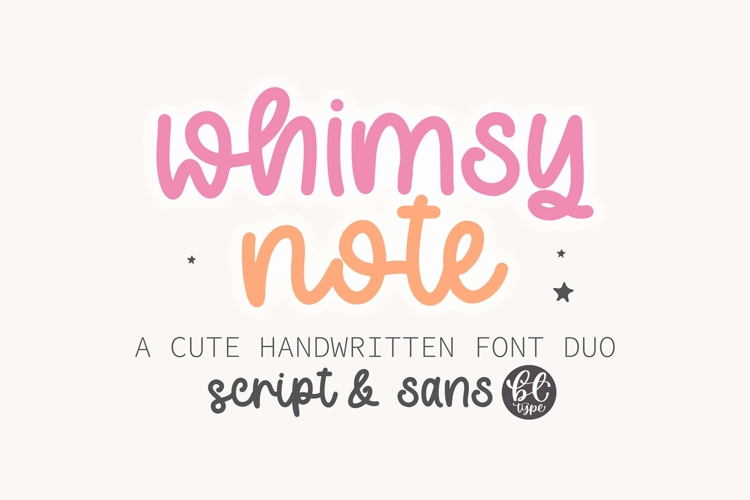
Whimsy Note - A handwritten font Duo
Looking for the perfect handwritten font to elevate your digital and creative projects? Introducing Whimsy Note, a playful and versatile Font Duo combining Sans and Script styles. Designed with care and inspired by the fluid strokes of a brush, this duo offers a seamless blend of neat elegance and quirky charm, making it ideal for planners, journaling, educational resources, and more.
The two fonts share the same brush, anatomy, and base design, ensuring harmony and versatility. Mix and match between Sans and Script styles, or combine Capitals and Lowercase to craft a unique look for every project. From digital planners to educational materials, Whimsy Note is the charming touch your designs need!